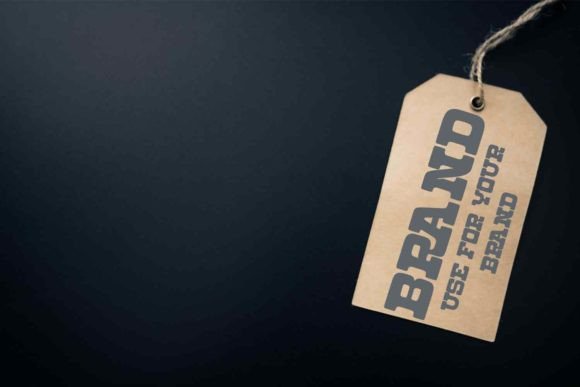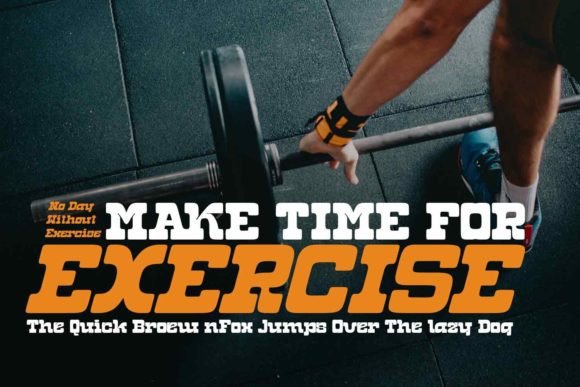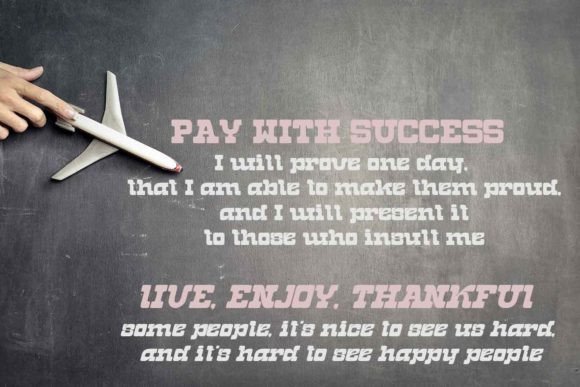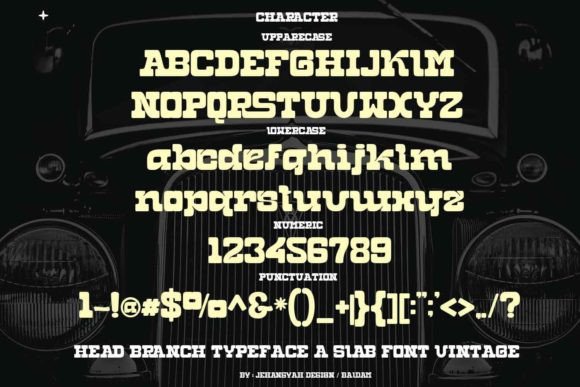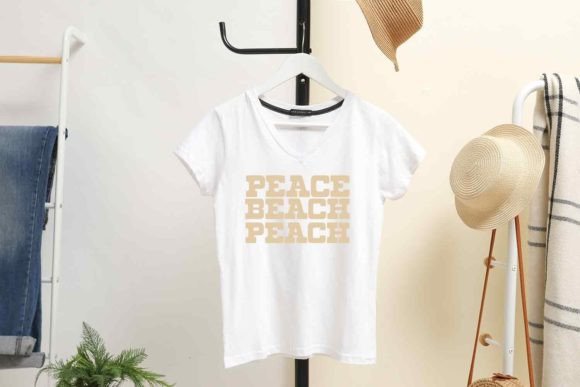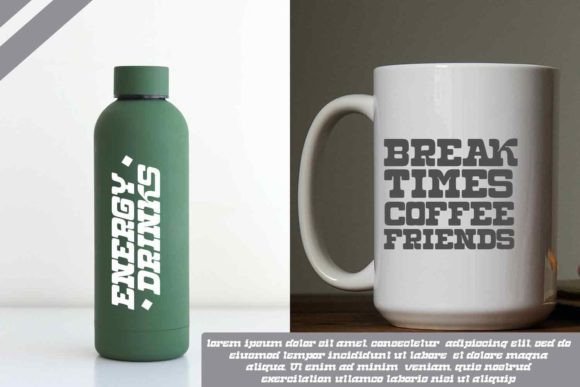
Introduction to Head Branch Font
Head Branch is a large and bold serif font with charming characters.
It looks old and simple but can contain a clear power in it It is suitable for all designs, large titles, stickers, magazines, books, writing works, video titles, and much more.
Key Features of Head Branch Font
Why Choose Head Branch Font?
Head Branch Font offers exceptional quality and versatility, making it a valuable addition to your design toolkit. Whether you’re creating for personal projects or commercial use, Head Branch Font delivers professional results.